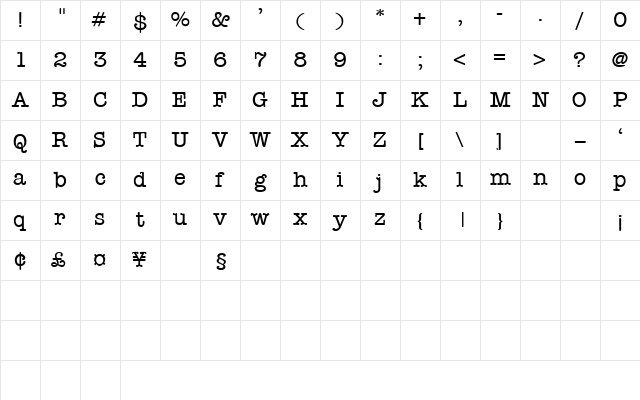
Edifice Normal
Edifice Family
Complete Edifice Normal glyph index. Displaying only characters natively supported by Edifice Normal font.
Design Context for Edifice
Edifice is a composed and adaptable typeface that performs quietly and consistently across a wide range of design contexts.